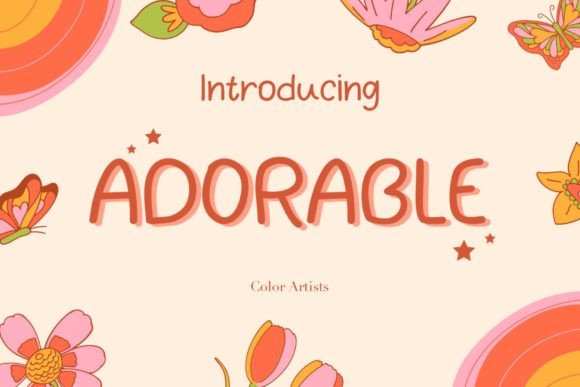
Introducing Adorable: The Cute and Elegant Font That’s Stealing Hearts
I’ll never forget the time I was working on a project for a children’s brand, and I was struggling to find the perfect font that would capture the essence of their playful and charming personality. The client wanted something that would appeal to kids and parents alike, but still convey a sense of sophistication and elegance. After hours of scouring the internet and trying out different fonts, I stumbled upon Adorable – a delightful typeface that instantly won my heart. In this article, I’ll share my experience with Adorable, its features, and how you can use it to add a touch of charm to your designs.
An Honest Review of Adorable
What I Love About Adorable ✨
• 💕 Its whimsical curves and lovable characters make it perfect for creating eye-catching designs that captivate hearts.
• ✅ Adorable is incredibly versatile, making it suitable for a wide range of projects, from children’s books to branding and packaging.
• 🎨 The font’s elegant and sophisticated feel ensures it won’t look out of place in more mature designs, such as fashion or lifestyle branding.
• ⚠️ Adorable may not be the best choice for body text, as its playful nature can make it difficult to read in large blocks.
• ⚠️ Some characters, such as the uppercase letters, can be a bit quirky and may not suit every design style.
The Backstory of Adorable
Adorable was designed by a team of creatives who wanted to create a font that would bring a smile to people’s faces. Inspired by the whimsy of children’s books and the elegance of high-end fashion, Adorable is the perfect blend of playfulness and sophistication. The design team spent countless hours perfecting the curves, lines, and characters to ensure that Adorable would be a versatile and charming addition to any design project.
Q: What is Adorable font best used for?
A: Adorable is perfect for designs that require a touch of playfulness and elegance, such as children’s books, branding, packaging, and website headers.
Q: Is Adorable a difficult font to read?
A: Adorable is designed to be easy to read, but its playful nature can make it more suitable for titles, headings, and short text rather than body text.